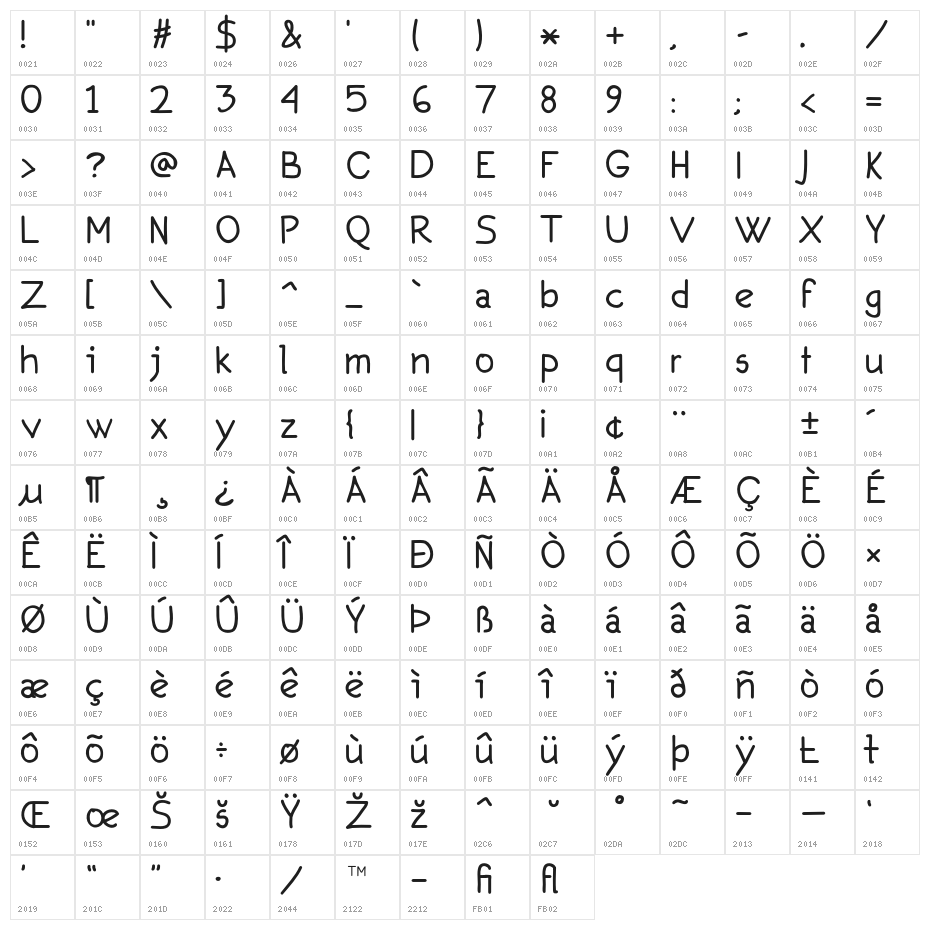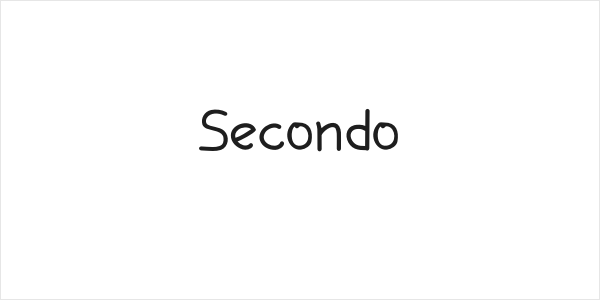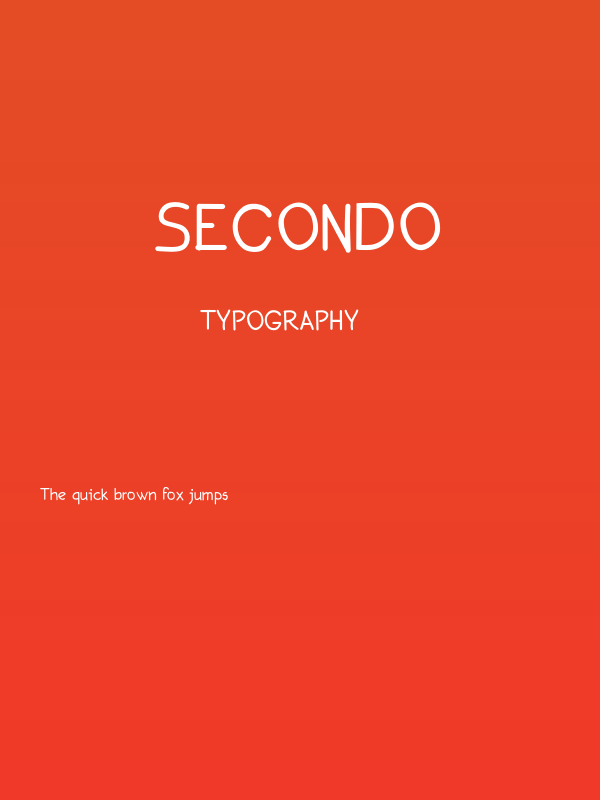
Secondo Font
Secondo Description
This playful and rounded font features a casual and friendly appearance, with smooth curves and a slightly uneven baseline that adds a touch of whimsy. The characters are well-spaced, making it easy to read while maintaining a unique personality. The uppercase letters are bold and prominent, while the lowercase letters have a more relaxed and informal style. The numerals are consistent with the overall design, providing a cohesive look. Special characters are included, enhancing its versatility for various uses.
| Overall Style | Casual |
| Use Case | Headlines, Logos, Informal Text |
| Proposed Projects | Ideal for children's books, playful branding, casual invitations, and creative projects that require a friendly and approachable feel. |